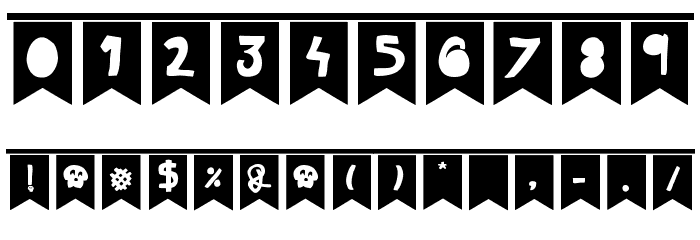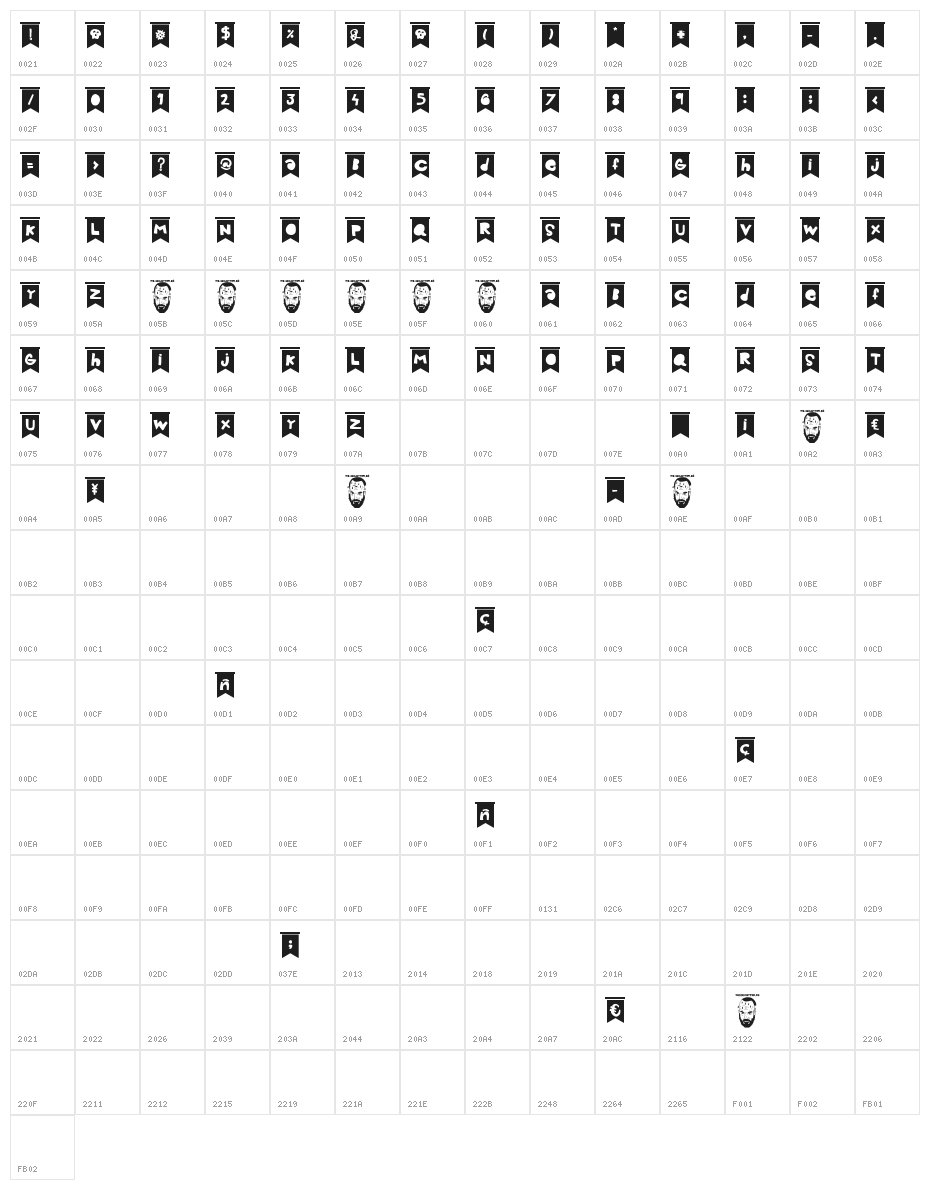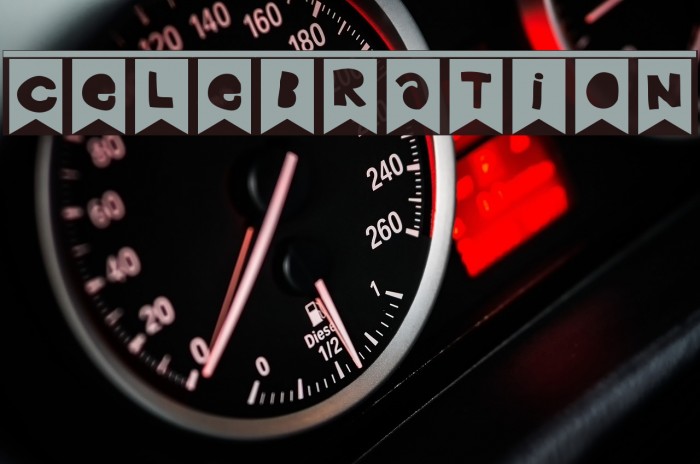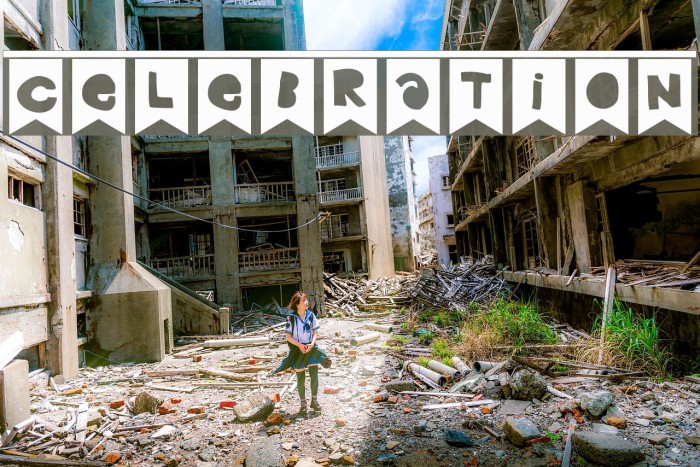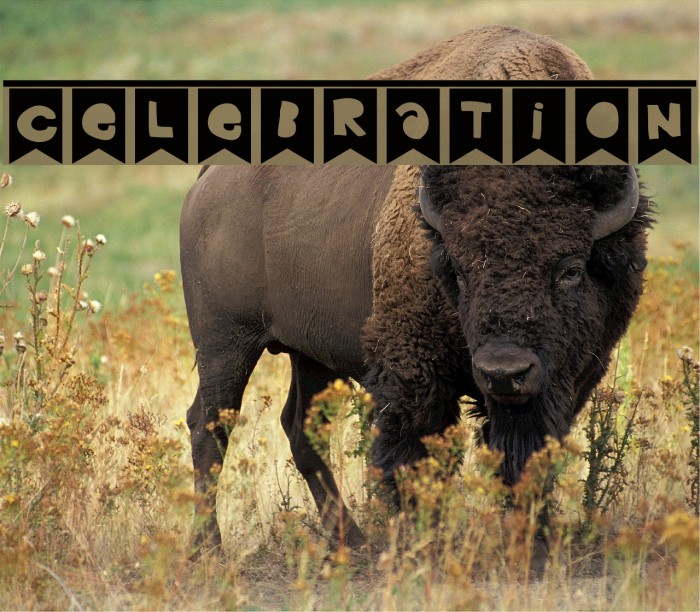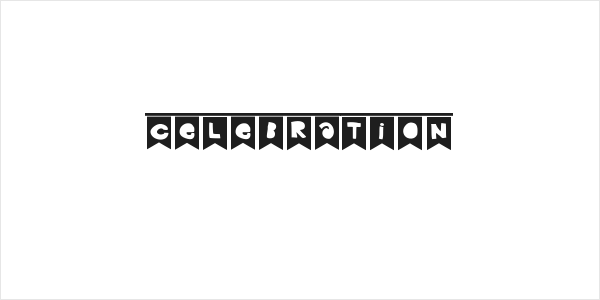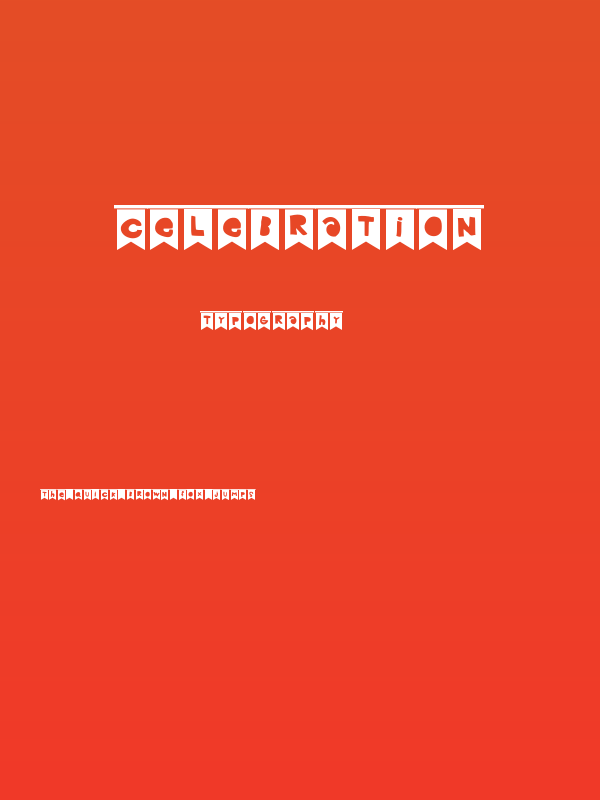
Celebration Font
Celebration Description
This font features a playful and bold design, with each character enclosed in a flag-like shape. The letters are rounded and slightly irregular, giving a whimsical and festive appearance. The uppercase and lowercase letters maintain a consistent style, with a mix of straight and curved lines. Numbers and special characters follow the same playful theme, making them suitable for celebratory and informal contexts. The overall design is eye-catching and ideal for creating a fun atmosphere.
| Overall Style | Playful, Festive |
| Proposed Projects | Ideal for party invitations, banners, children's event posters, and playful branding. |